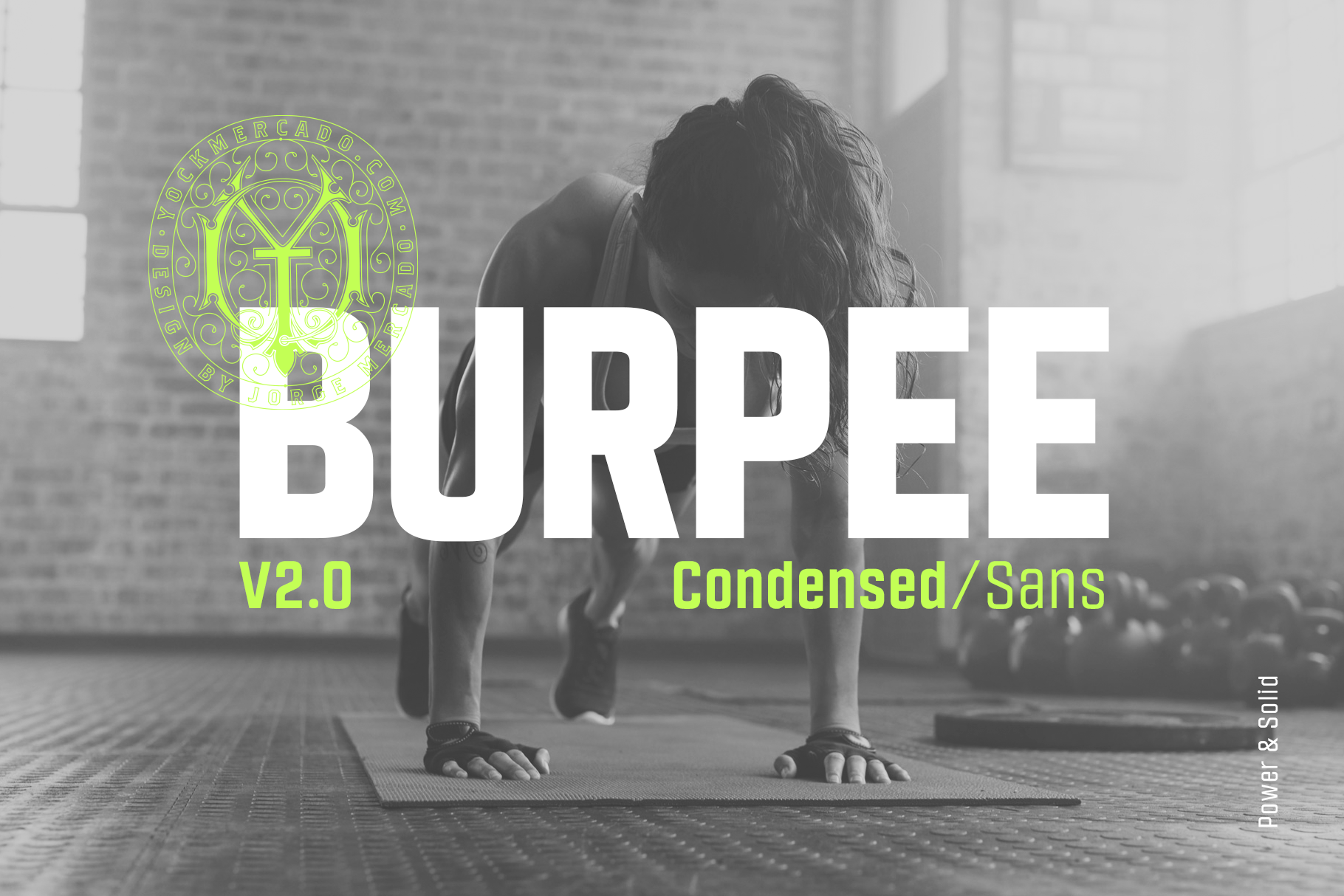
Burpee Sans Condensed Typeface
Burpee is a variable condensed sans typeface, designed for headlines that needs be powerful and punchy, Burpee is inspired in sports, looking for a visual impact that get the attention.